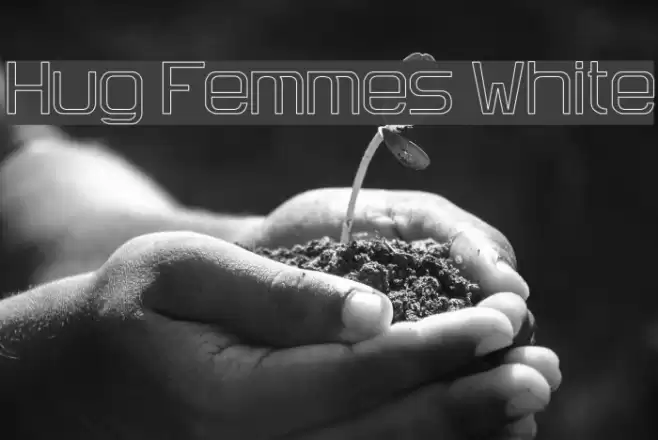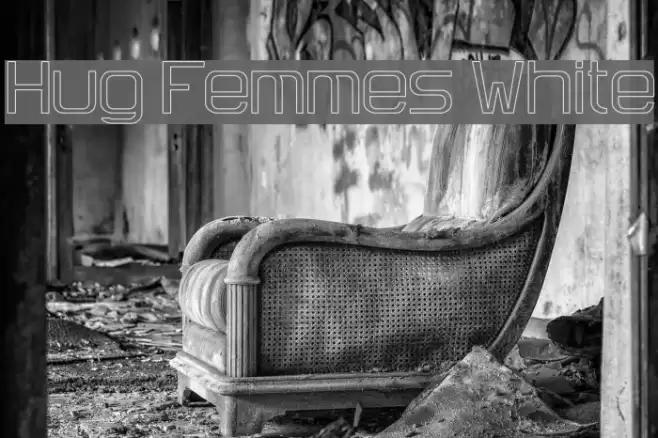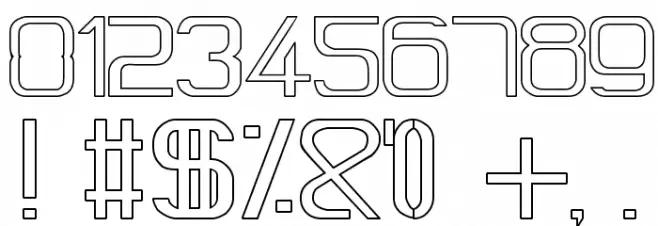
Hug Femmes White Font
Hug Femmes White Description
This font features a geometric and modern design with a hollow, outlined style. The characters are constructed with clean, straight lines and sharp angles, giving it a futuristic and technical appearance. The uppercase and lowercase letters maintain a consistent height, contributing to a uniform look. The numerals and special characters follow the same outlined aesthetic, ensuring cohesion across all glyphs. This font's unique style makes it stand out, particularly in digital and tech-related contexts.
A geometric, outlined font with a modern, technical style from Uncategorized fonts.
- Proposed Projects: Ideal for digital designs, tech branding, futuristic themes, and modern posters.